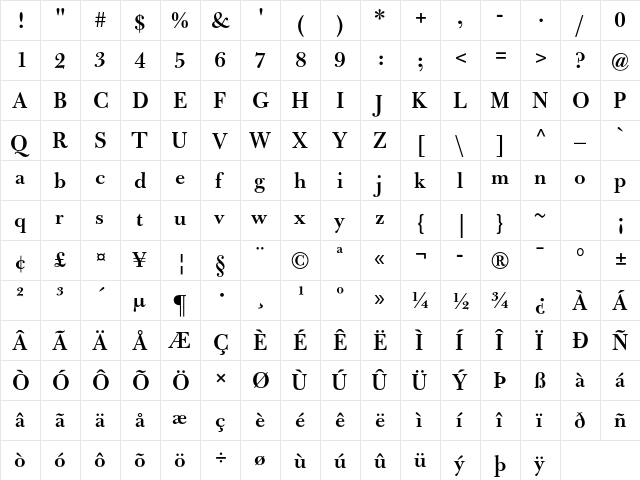
Bulmer MT Std Semibold
| Designer | Morris Fuller Benton, William Martin |
Design Context for Bulmer MT Std Typeface
Bulmer MT Std offers clean, dependable letterforms without strong stylistic allegiance, making it a practical choice for designers who need flexibility. The heavy weight commands attention and anchors typographic hierarchies.